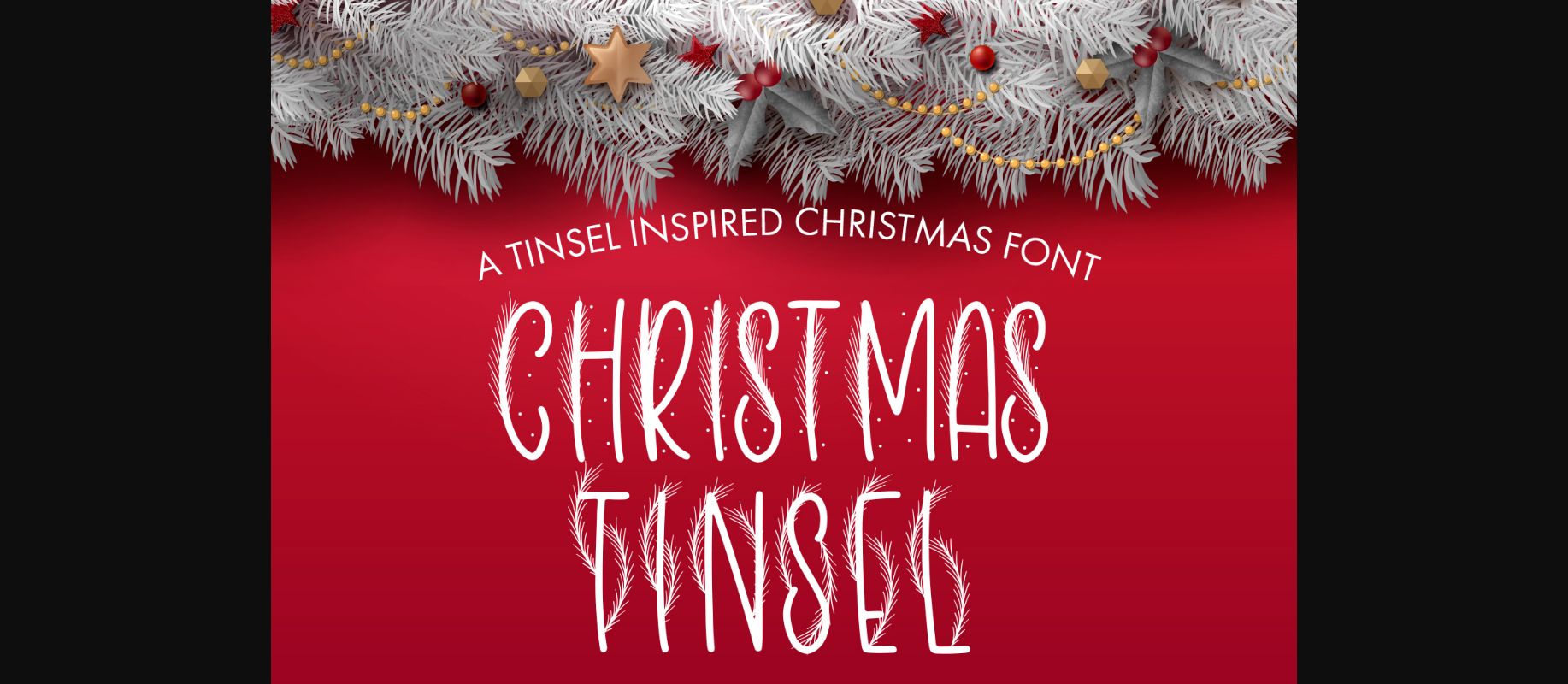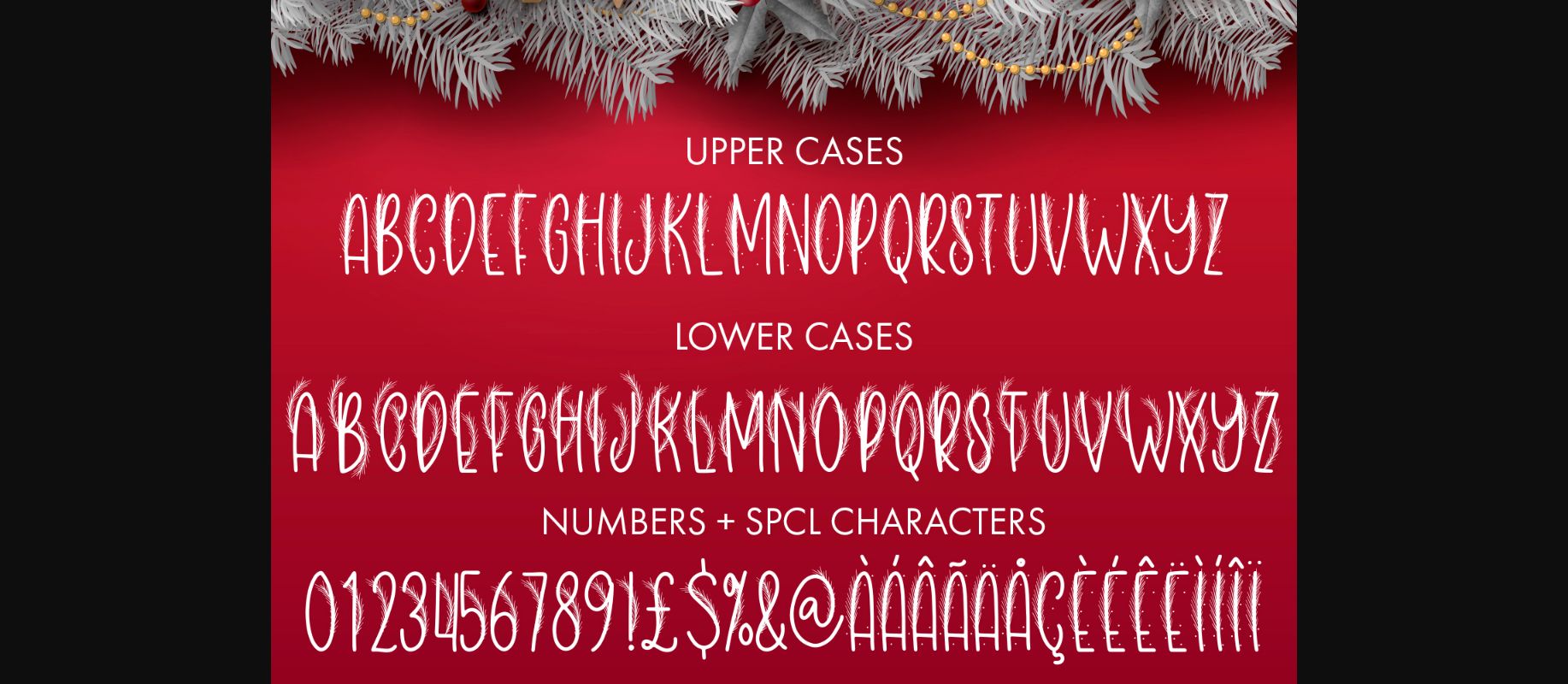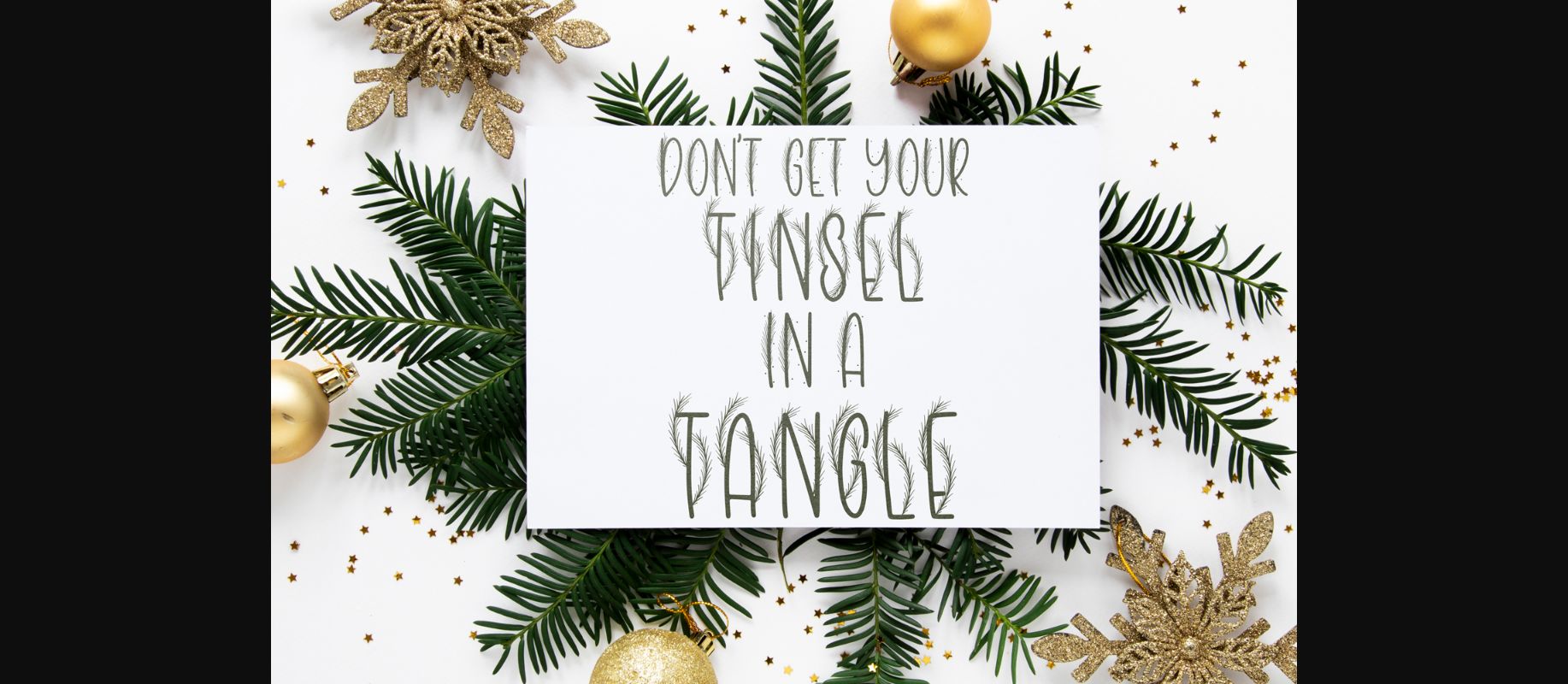
Christmas Tinsel Font
About Christmas Tinsel Font
Christmas Tinsel is a fun decorative font with a Christmas & holiday theme. Use this gorgeous and unique font to bring any DIY project to life!